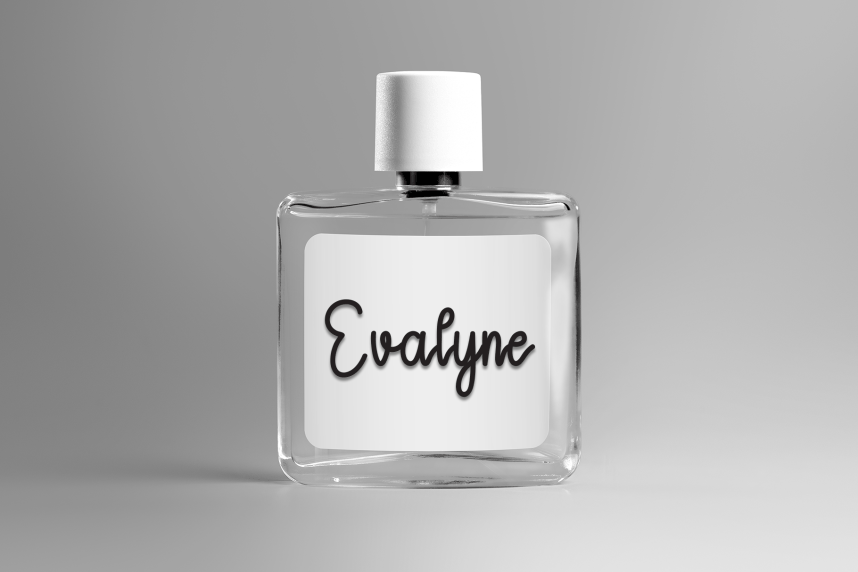
Mountains – Modern Handwritten Font is a sweet and friendly handwritten display font. Cute and fun, this font is ideal for writing wedding invitations, cards, or any other design that might need a playful touch!